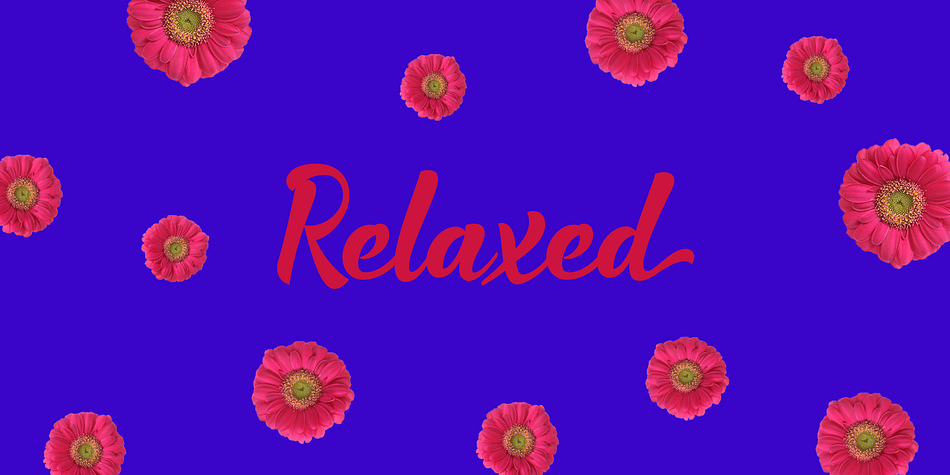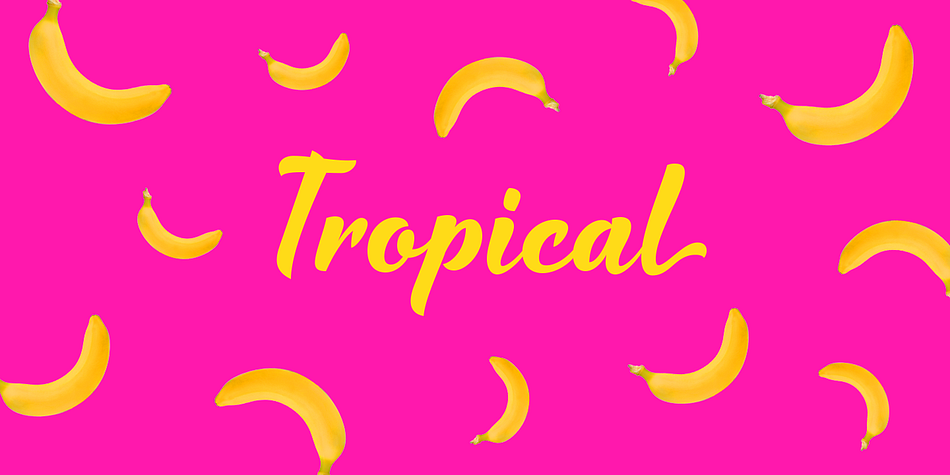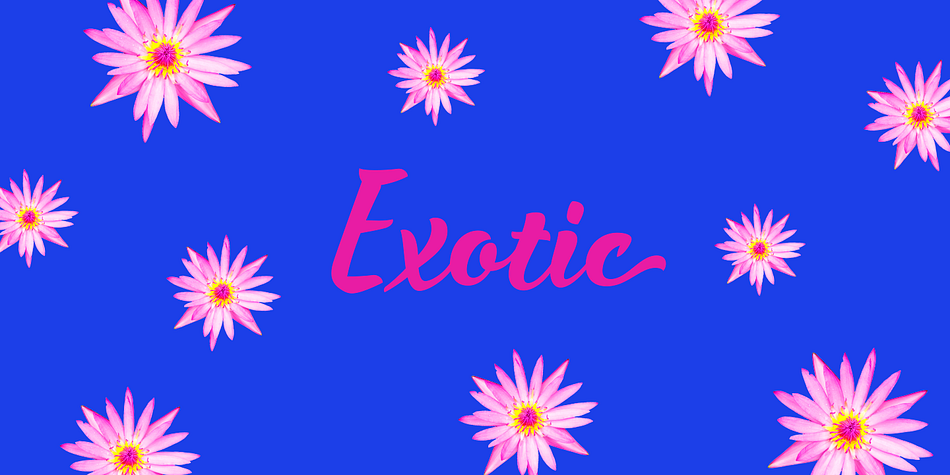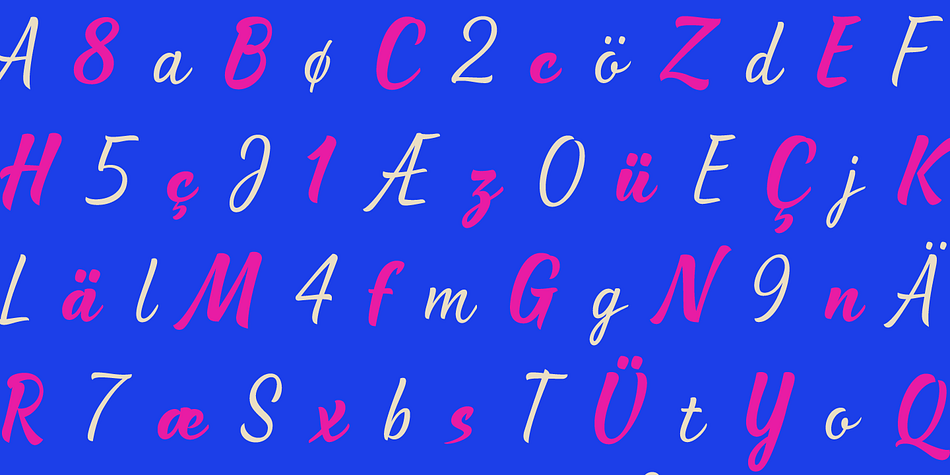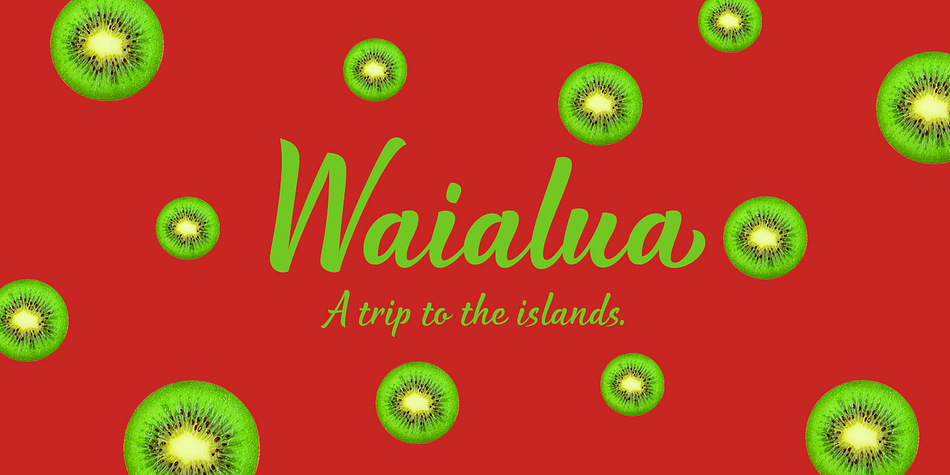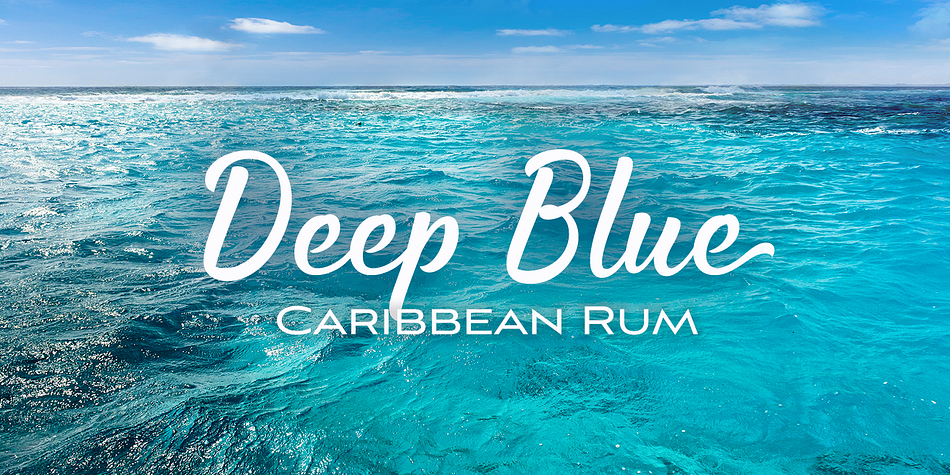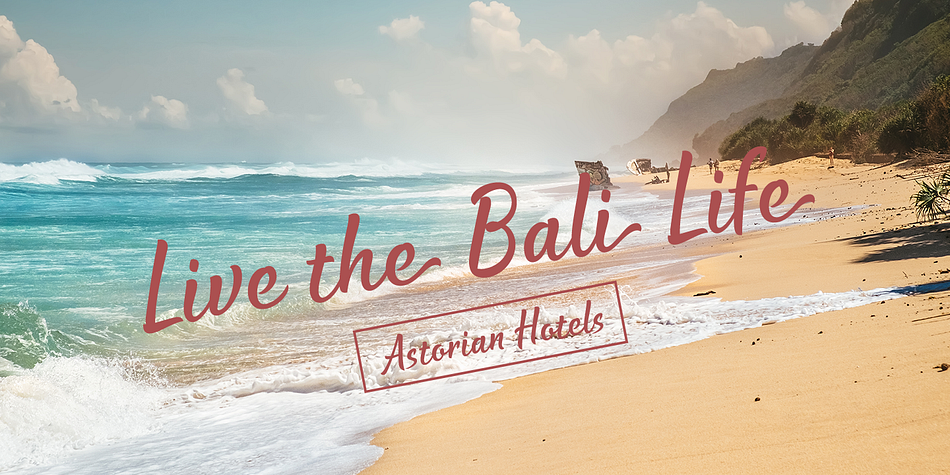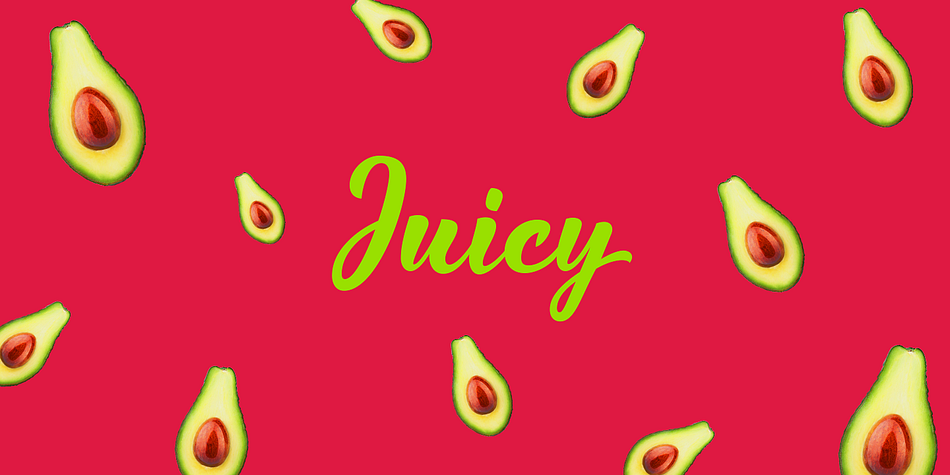
Designed by Jeremy Dooley, Waialua is a brush script and script font family. This typeface has six styles and was published by Insigne Design.
Aloha to Waialua! Put on your lei and grab a drink umbrella as you kick back and start designing with this island beauty of a font. Soak in the unprecedented potential of this new font. Waialua is one of insigne’s first variable fonts. Avoid the font limbo with a set number of options from Thin to Black. Go with the flow and see where you feel the innumerable amount of weights taking you as you slide your design options along a spectrum of stunning possibilities.
There’s more, too. Waialua’s auto-replacing terminators allow you never to need connectors at the end of your words. Or if you want, you can dial up your design with optional swash endings.
So set your course for the islands and get ready for a fun time with the tropical beauty of Waialua. This is one font vacation your work—and your reader—will never want to end.
Styles | Brush Script, Script |
Designer | Jeremy Dooley |